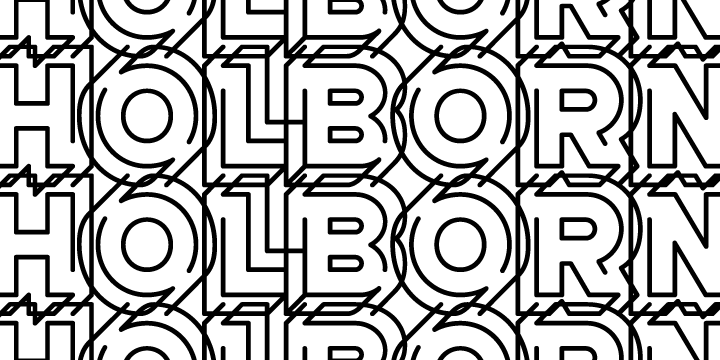
AT Move Holborn Font is perfect for dynamic fitness branding, athletic performance campaigns, sports equipment packaging, movement therapy communications, dance studio signage, fitness app interfaces, athletic training materials, sports performance centers, active lifestyle magazines, motion graphics design, exercise equipment branding, and kinetic wellness promotions. This energetic typeface excels in applications requiring movement and athletic dynamism, making it ideal for fitness centers, sports brands, movement professionals, and businesses targeting active audiences seeking dynamic fitness experiences and athletic performance enhancement.
What makes AT Move Holborn Font exciting is its remarkable ability to convey athletic motion and dynamic energy through kinetic typography. The font features flowing letterforms with movement-inspired angles and athletic character variations that instantly communicate physical activity and performance excellence. Its dynamic construction and energetic design create an atmosphere of athletic achievement and kinetic wellness, while maintaining excellent readability across all applications. The font's distinctive personality embodies the essence of athletic movement and fitness dynamism, making it perfect for brands seeking to establish active, performance-oriented identities that resonate with athletes and fitness enthusiasts seeking dynamic movement experiences.
The AT Move Holborn Font family typically includes multiple weights such as Light, Regular, Medium, Bold, and Black variations, along with their corresponding italic styles. Many collections also feature movement alternates, athletic-inspired ligatures, and dynamic decorative elements that enhance the font's kinetic character. Some comprehensive packages include sports symbols, movement borders, and fitness glyphs that provide complete design flexibility for athletic and movement projects promoting physical performance and dynamic wellness experiences.
AT Move Holborn Font Free Download represents the perfect fusion of athletic aesthetics and typographic excellence. This remarkable typeface brings instant energy and movement appeal to any project, making it particularly valuable for fitness brands, sports organizations, and athletic companies seeking to establish dynamic, performance-focused brand identities. The font's versatile nature allows it to perform dynamically in both large athletic displays and detailed movement communications.
Designers appreciate AT Move Holborn Font for its ability to instantly convey athletic performance, dynamic movement, and fitness energy that motivates audiences seeking active lifestyles and athletic excellence. The font's excellent construction ensures smooth performance across various media and applications, while its athletic appeal adds immediate movement authenticity to any design project. The comprehensive character set includes standard Latin characters, numerals, punctuation marks, and special symbols, making it suitable for fitness communications, sports publications, and diverse athletic applications.
This exceptional typeface successfully captures the essence of athletic movement and dynamic fitness while offering modern functionality, providing designers with an authentic tool for creating memorable and impactful communications that resonate with athletes, fitness enthusiasts, and audiences seeking dynamic movement experiences and athletic performance enhancement.